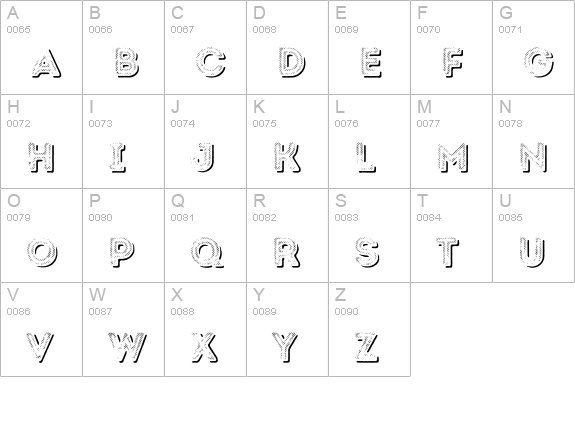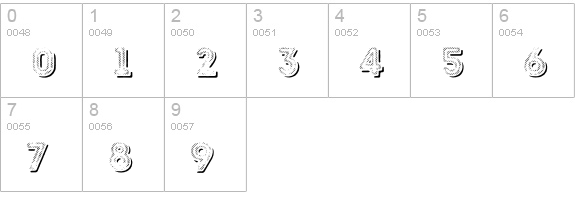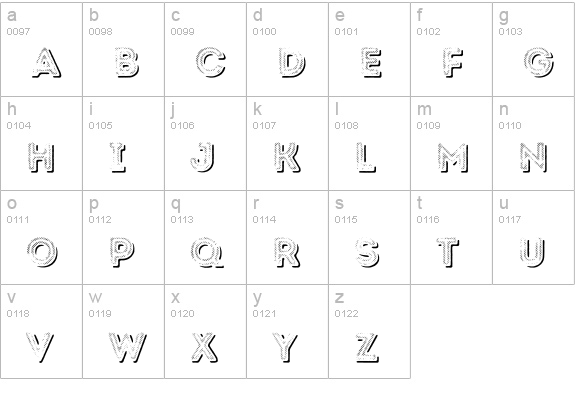
Intro Rust L Fill 2 Shade Font Details
Intro Rust L Fill 2 Shade font is a striking and versatile display typeface that exudes a sense of urban style and industrial charm. This font features a unique combination of bold letterforms filled with intricate shading details, creating a dynamic and eye-catching appearance. The design of Intro Rust L Fill 2 Shade font is perfect for creating impactful headlines, posters, logos, and other design projects that require a bold and expressive look. Its edgy aesthetic adds a touch of modernity and creativity to any design. Best of all, Intro Rust L Fill 2 Shade font is available for free download at FontsMarket.com, making it easily accessible for designers, creatives, and typographers looking to add a touch of urban flair to their projects. Don't miss out on the opportunity to enhance your designs with this unique and captivating typeface.